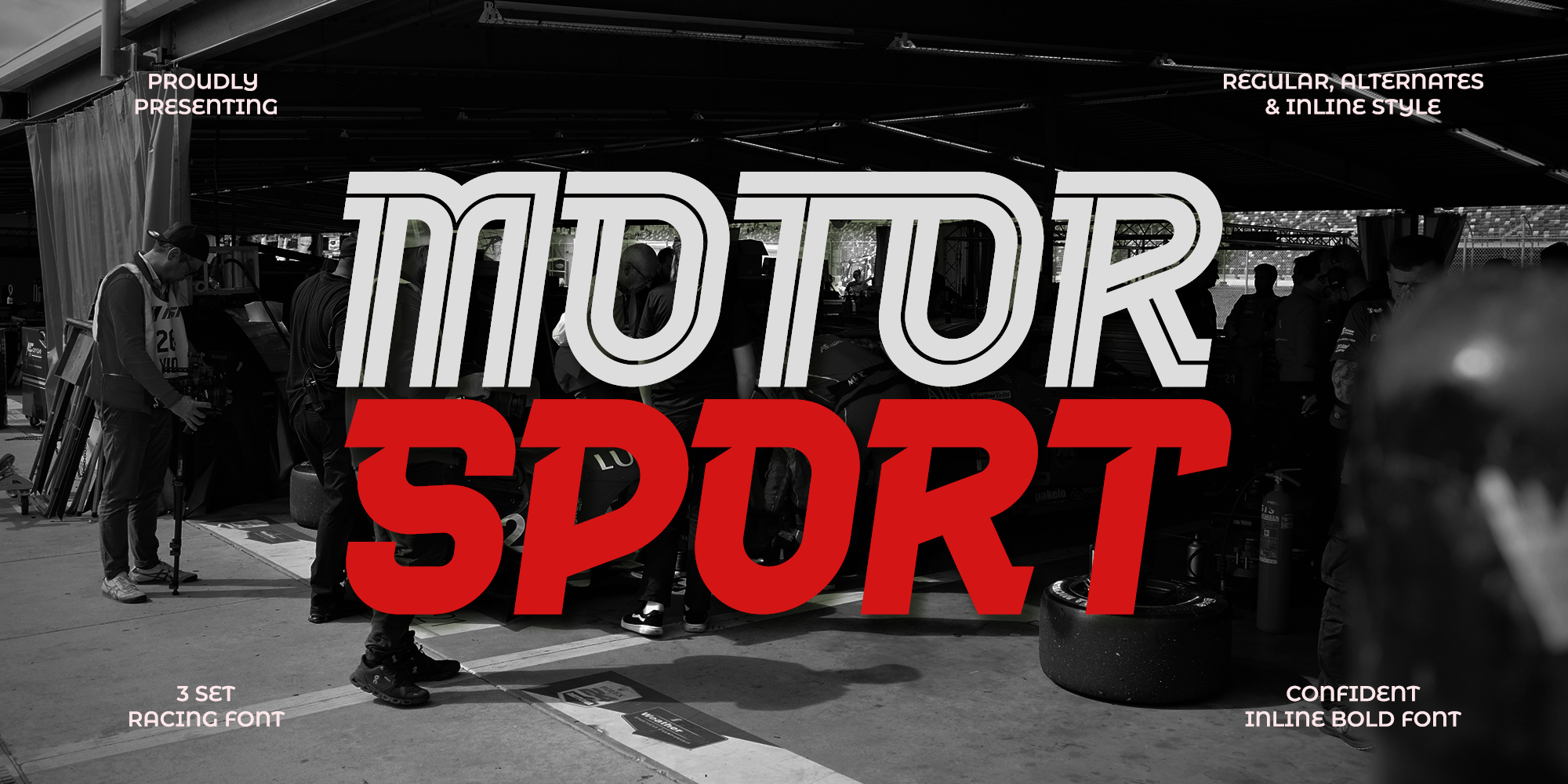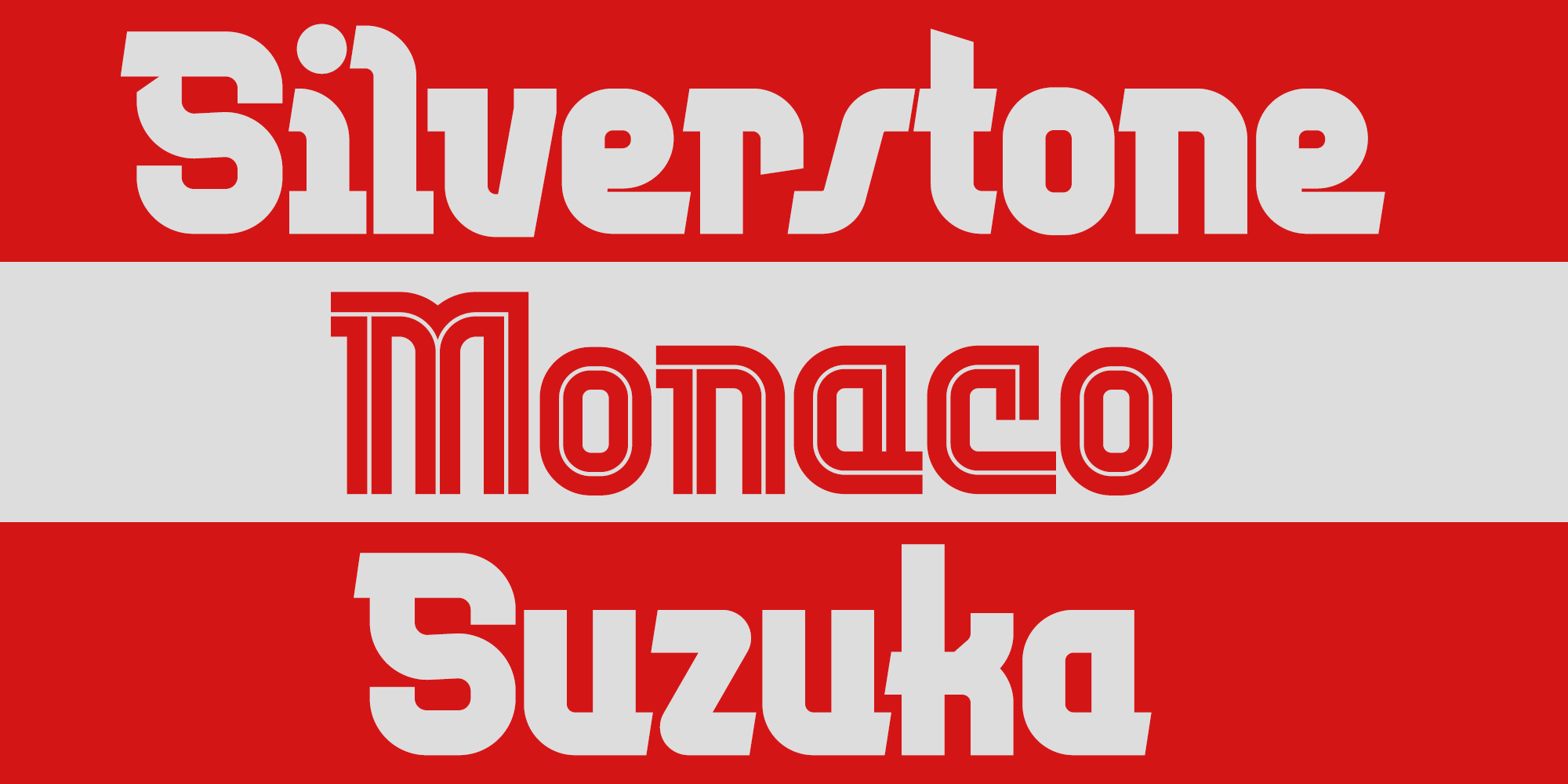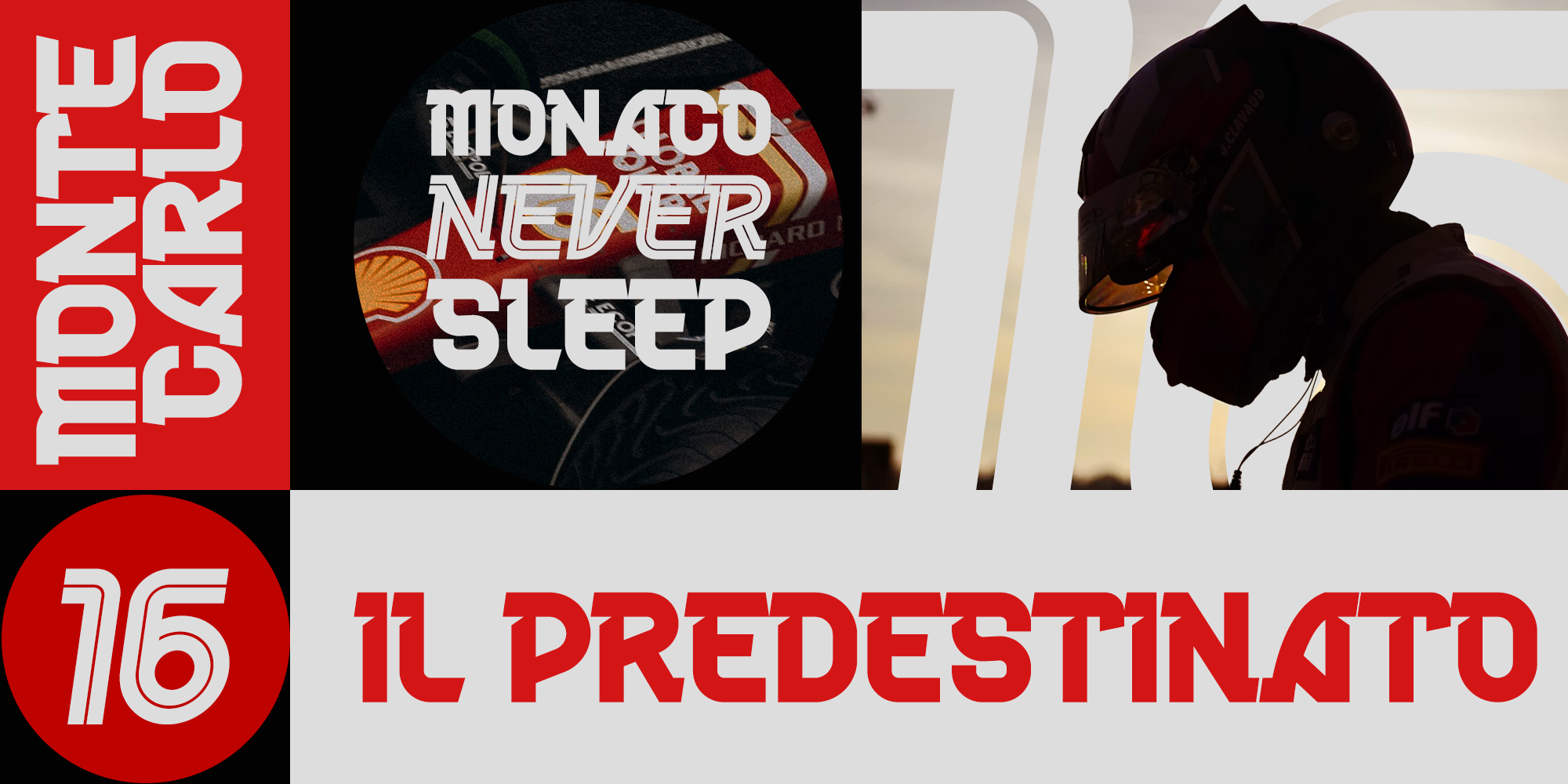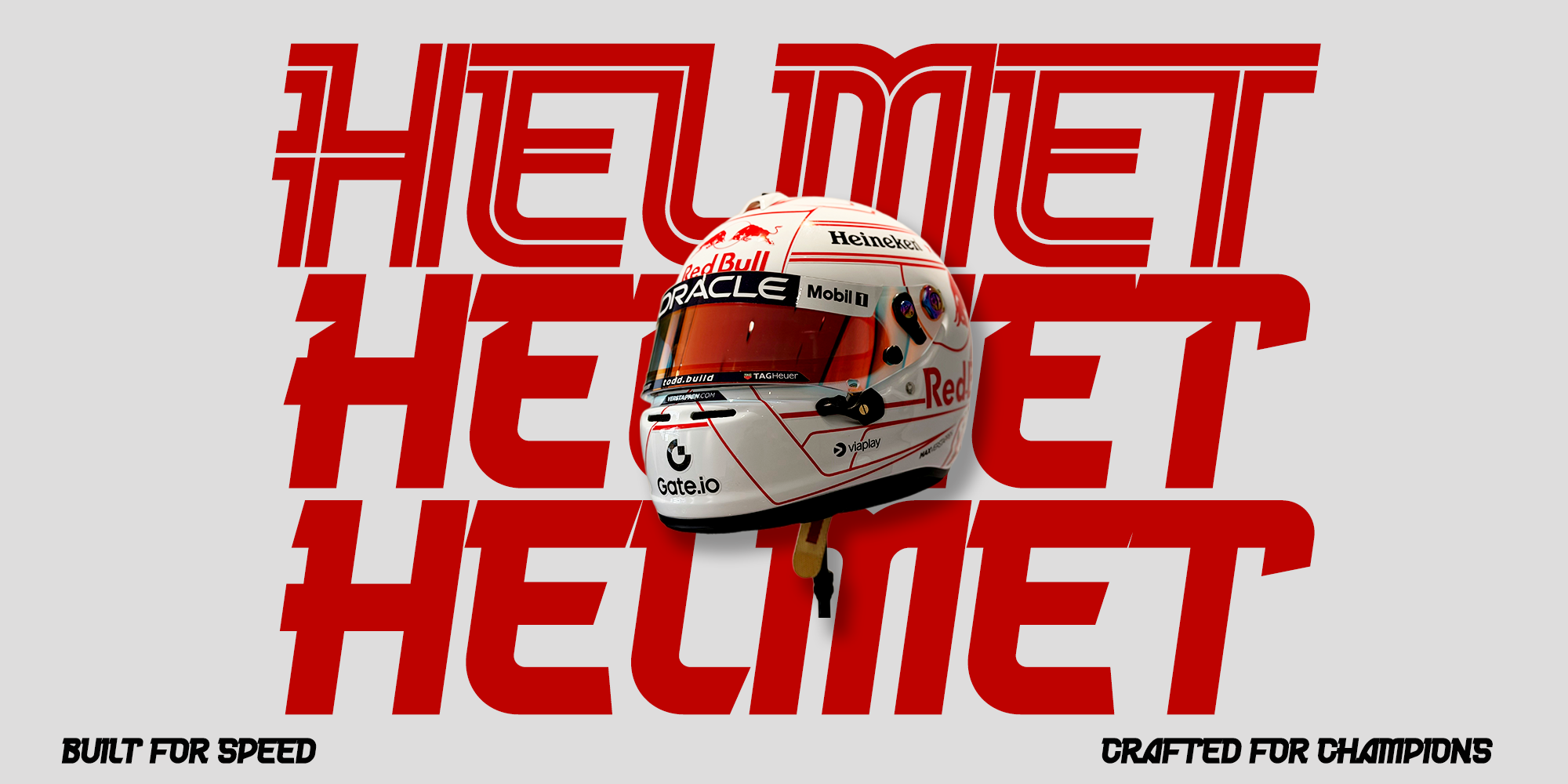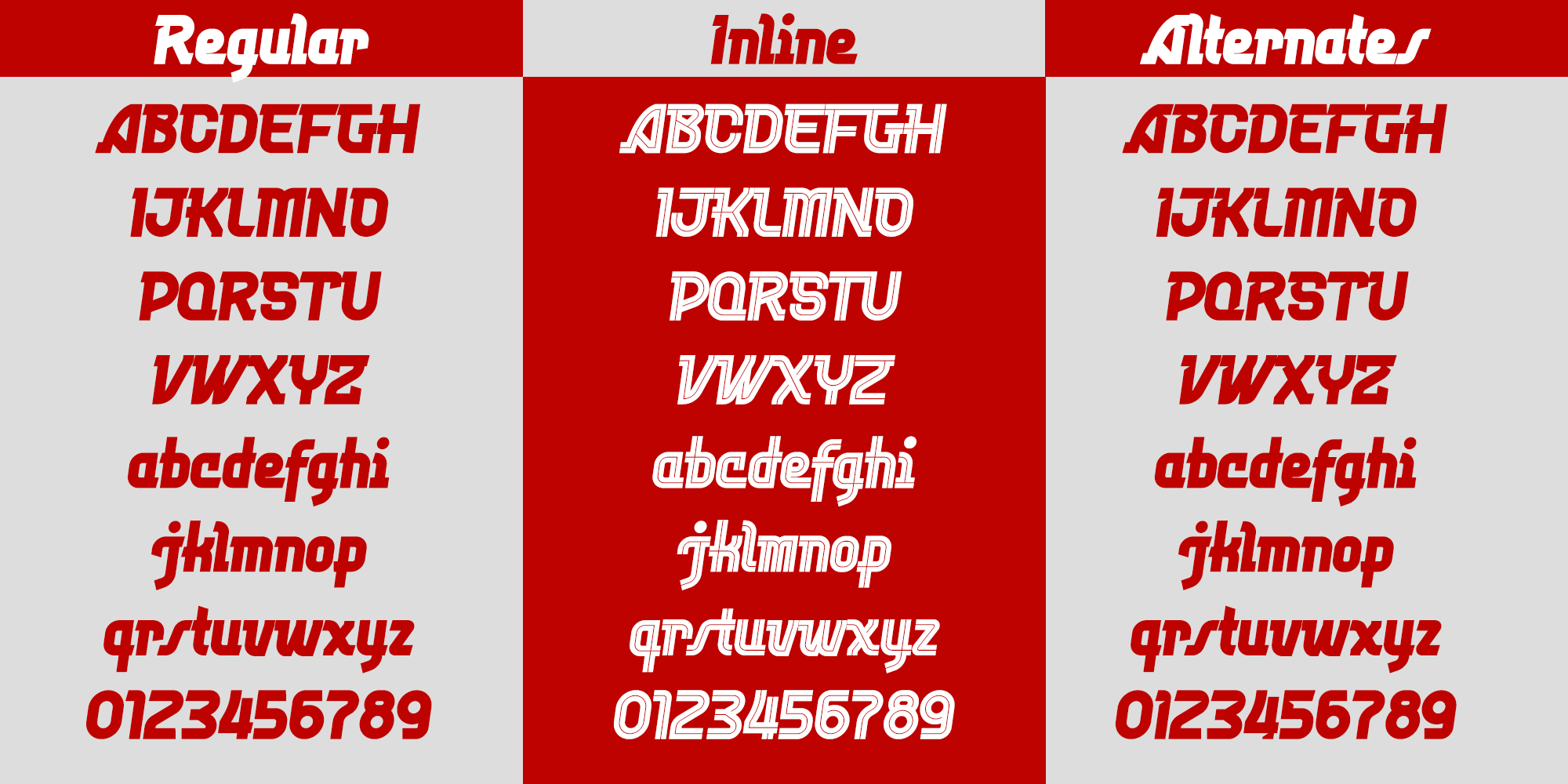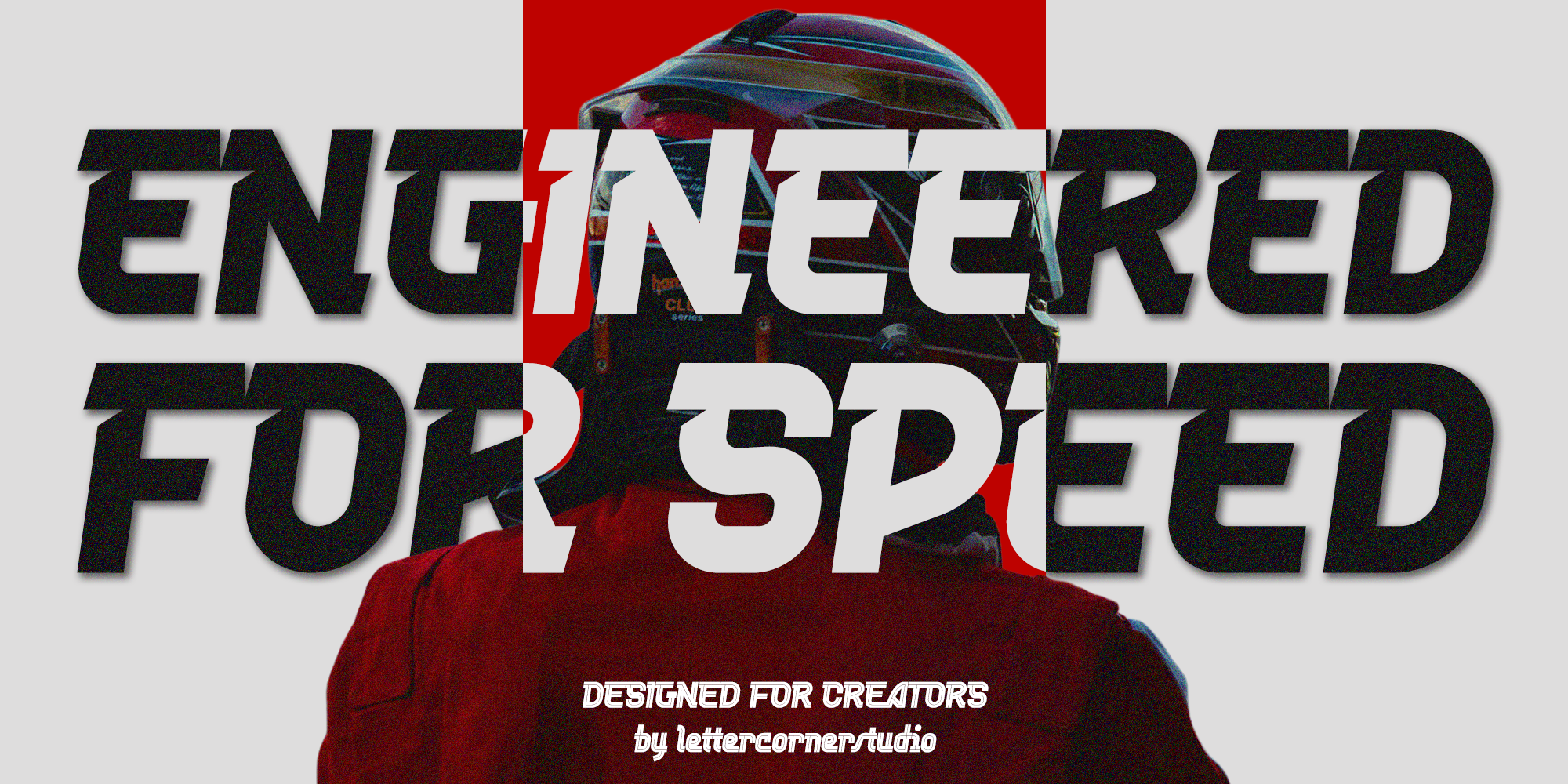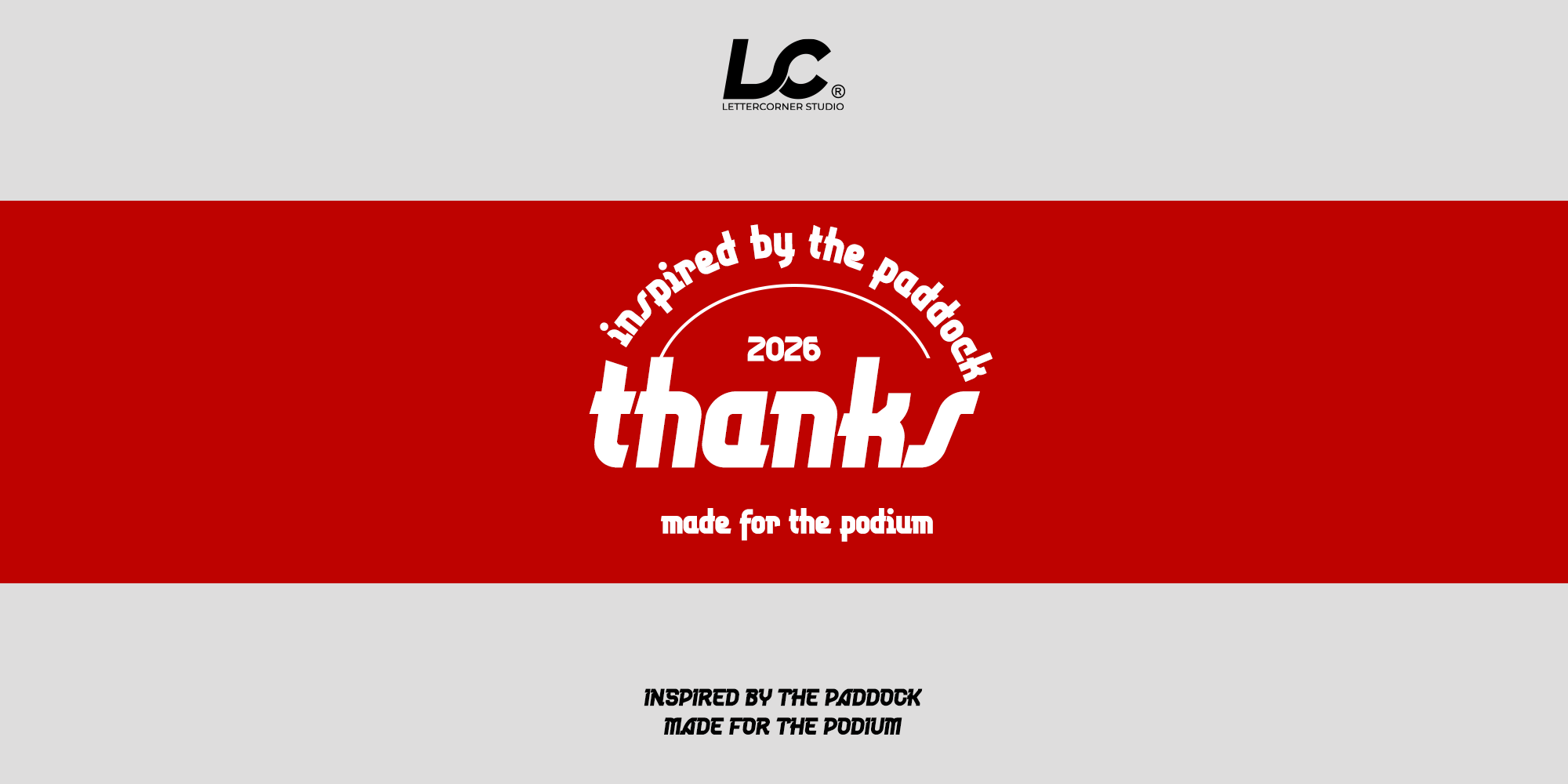
Motorsport
Motorsport — High-Speed Racing Display Typeface
There is a split second between the lights going out and the first corner—a moment where anticipation turns into pure commitment. Motorsport is inspired by that instant. Fast, focused, and engineered for maximum impact, it transforms the intensity of professional racing into bold, uncompromising typography.
Every letter is sculpted with aerodynamic curves, sharp-cut terminals, and a forward-leaning stance that evokes motion even while standing still. Influenced by the visual language of Formula racing, MotoGP, endurance championships, and high-performance engineering, Motorsport delivers a commanding presence built for speed.
Whether it’s stretched across a race livery, dominating a billboard, leading a sports campaign, or defining an automotive brand, Motorsport brings the confidence of the starting grid and the precision of the apex to every design.
The family includes 6 carefully crafted styles, giving you the flexibility to create everything from clean modern branding to bold, layered display compositions.
Available Styles
Regular — Bold, balanced, and powerful. Designed to deliver maximum legibility while maintaining a strong motorsport identity.
Italic — Leaning forward with aggressive momentum, capturing the sensation of acceleration and speed.
Inline — A technical interpretation with racing-inspired line details, perfect for premium branding and striking headlines.
Inline Italic — Combining speed and precision, this style adds dynamic movement to every composition.
Alternates — Refined alternate letterforms that offer greater creative flexibility and distinctive branding possibilities.
Alternates Italic — Performance-driven alternates with an energetic forward slant for even more expressive typography.
Designed for projects that demand energy, confidence, and performance, Motorsport is the perfect choice for:
• Formula & MotoGP Inspired Designs
• Motorsport Branding
• Automotive & Performance Products
• Racing Teams
• Sportswear & Apparel
• Esports & Gaming
• Posters & Editorial Headlines
• Logos & Wordmarks
• YouTube Thumbnails
• Social Media Campaigns
• Packaging
• Event Graphics
Inspired by the paddock. Made for the podium.